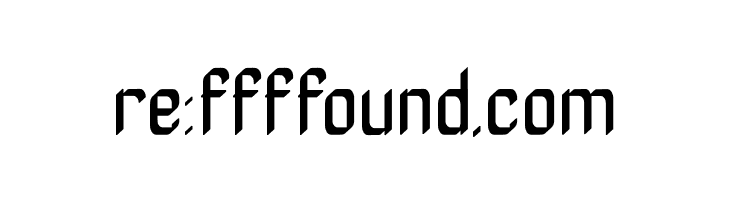
Cosmas Regular Font
- Font: Cosmas Regular
( Fonts by Ryoichi Tsunekawa - www.dharmatype.com )
A futuristic, monospaced font with geometric, mechanical design.